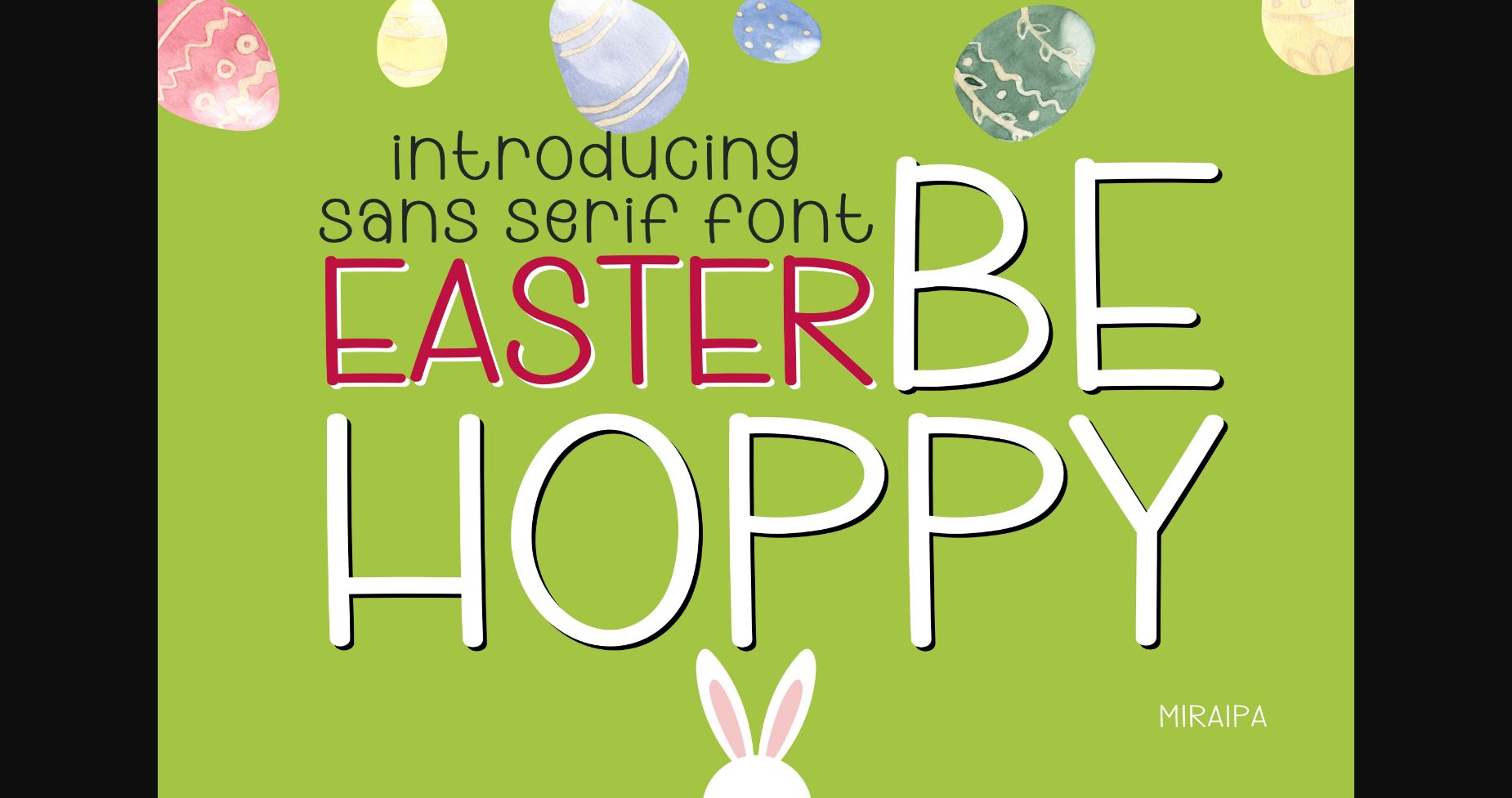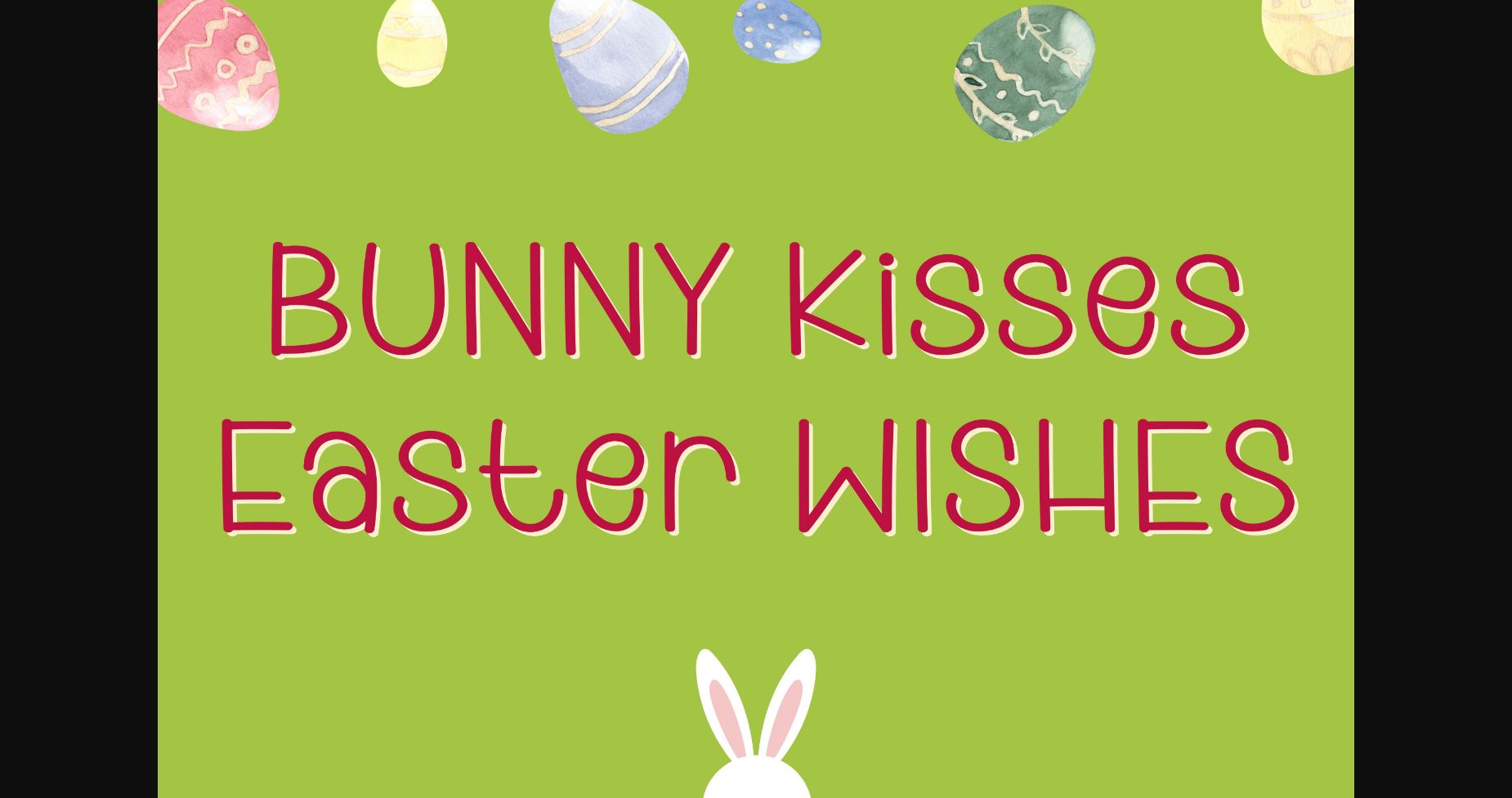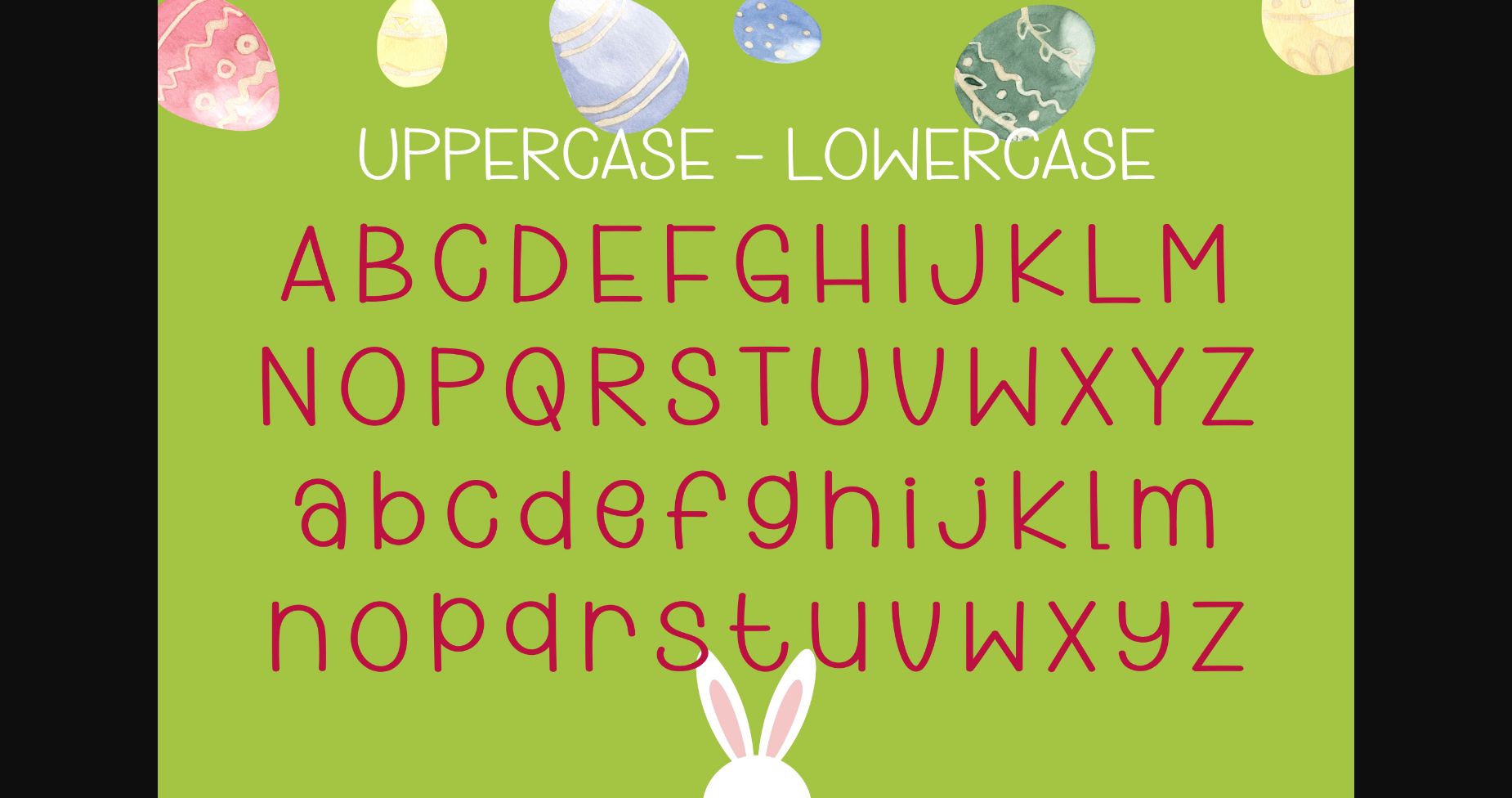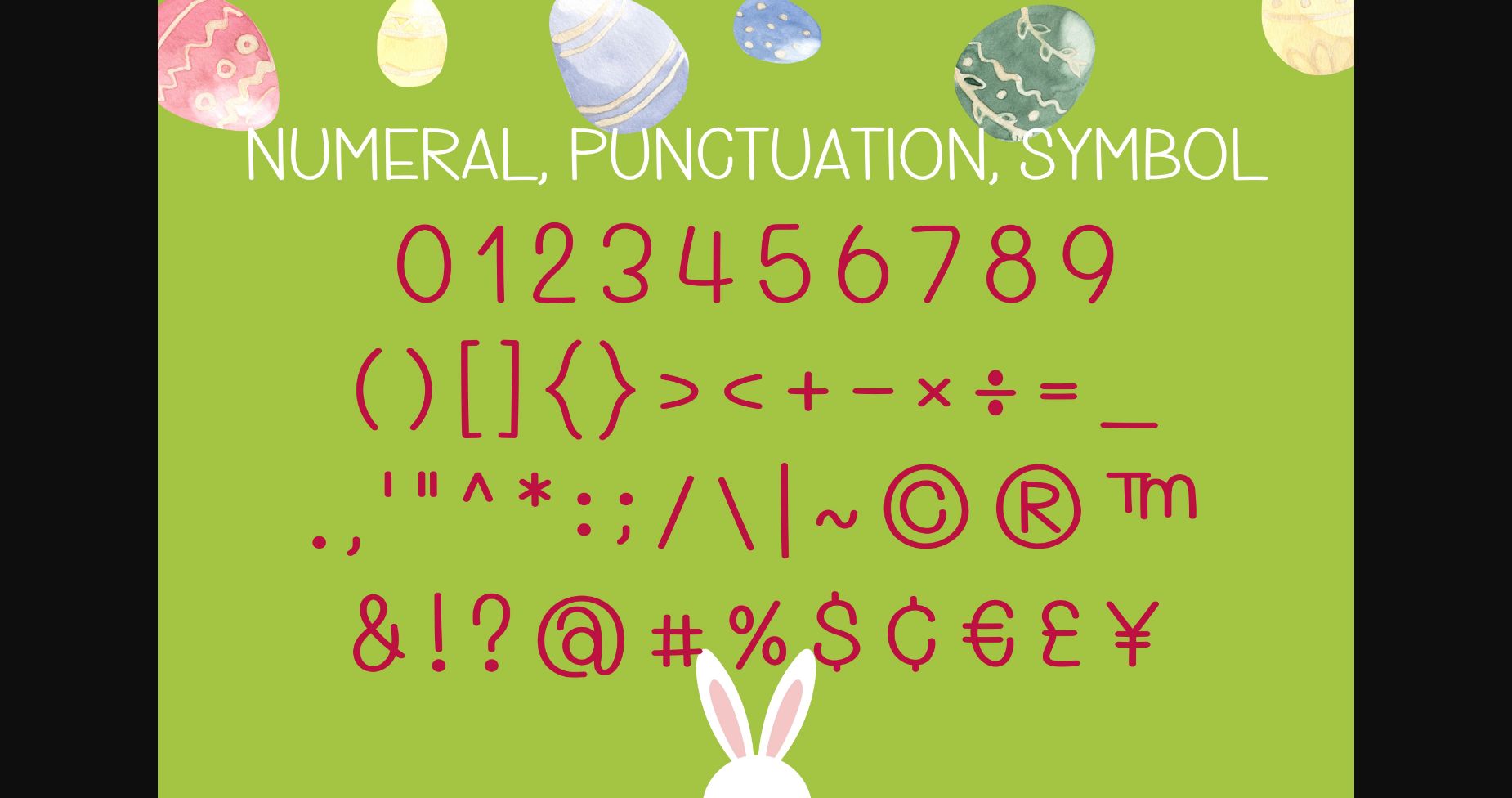
About Easter Be Hoppy Font
Easter Be Hoppy is friendly and cute handwritten sans serif font. No matter the topic, this font will be an incredible asset to your fonts’ library, as it has the potential to elevate any creation.